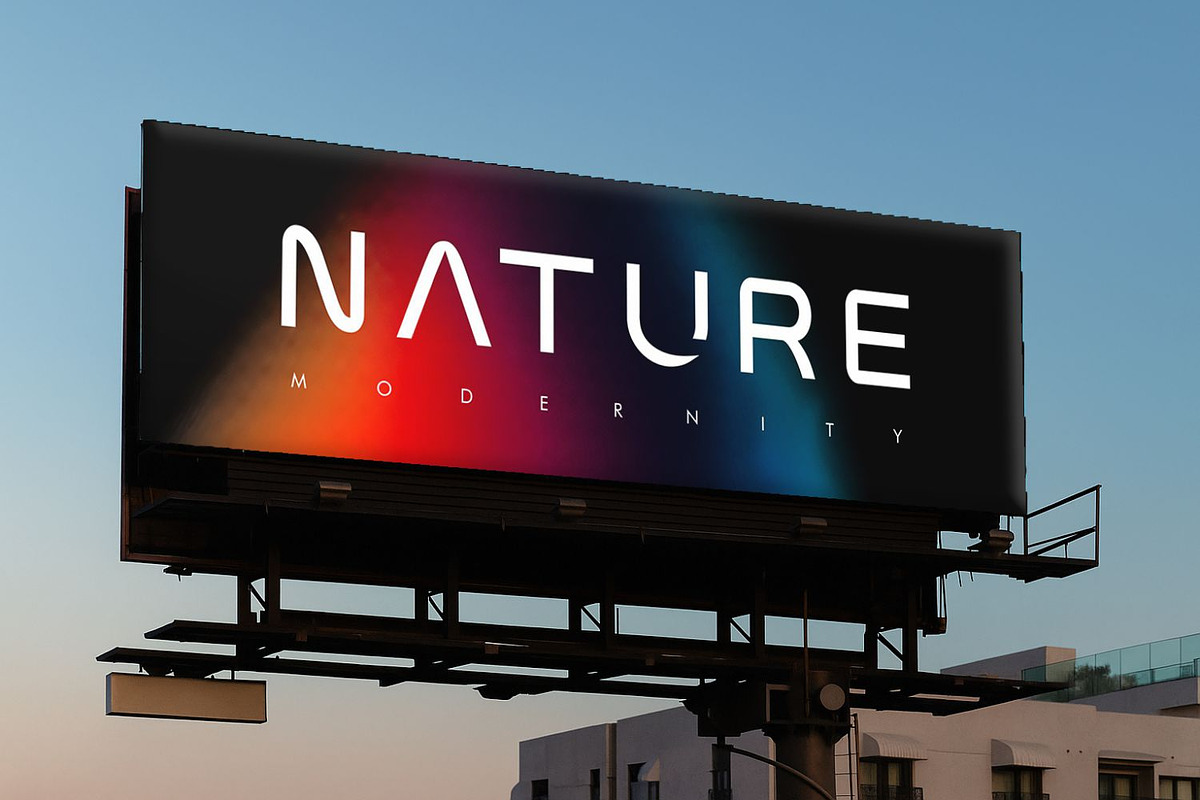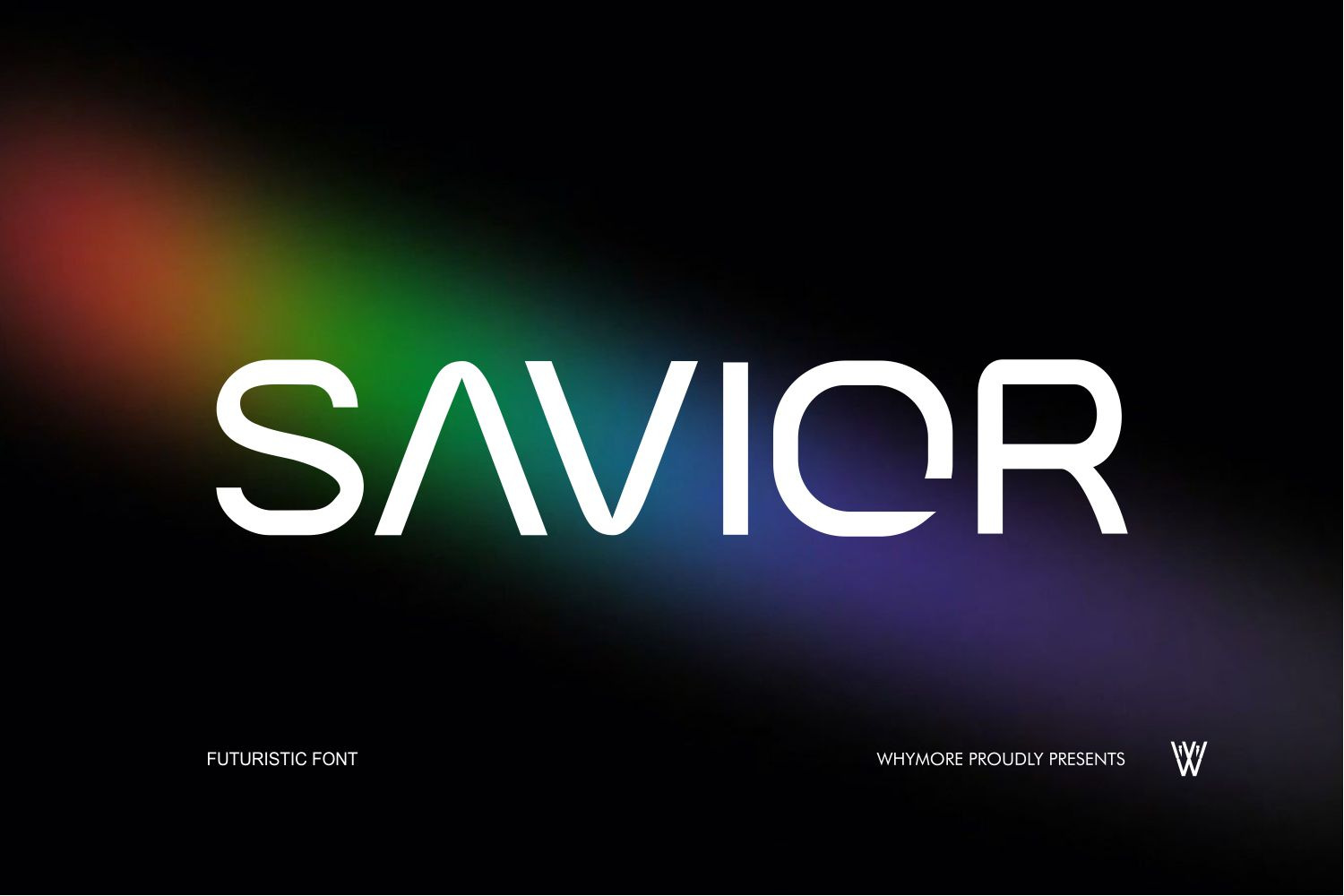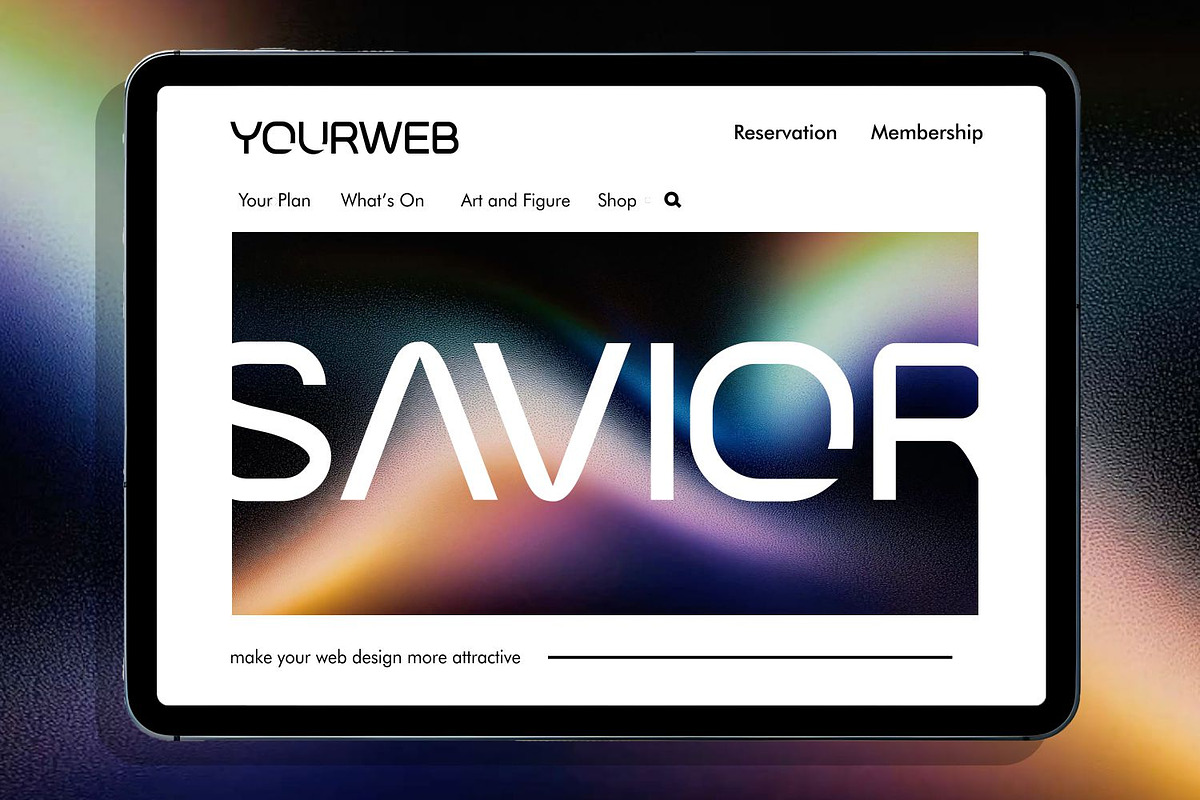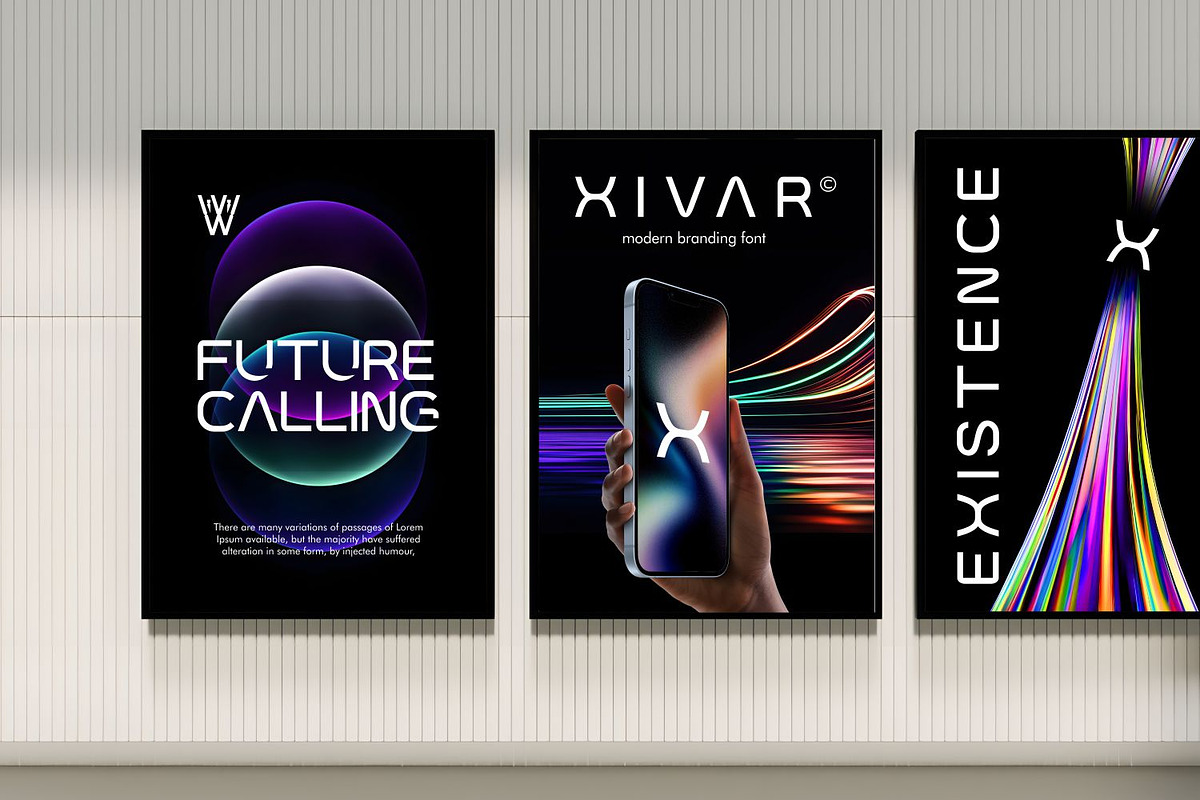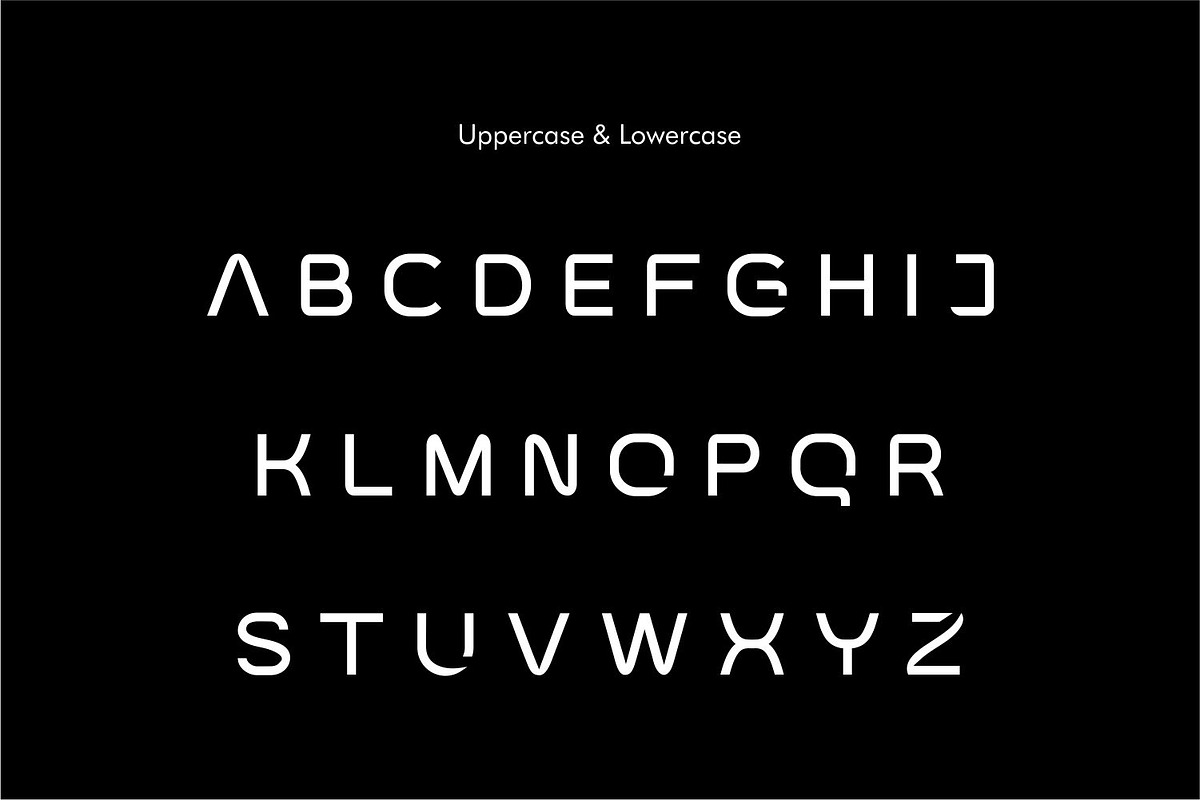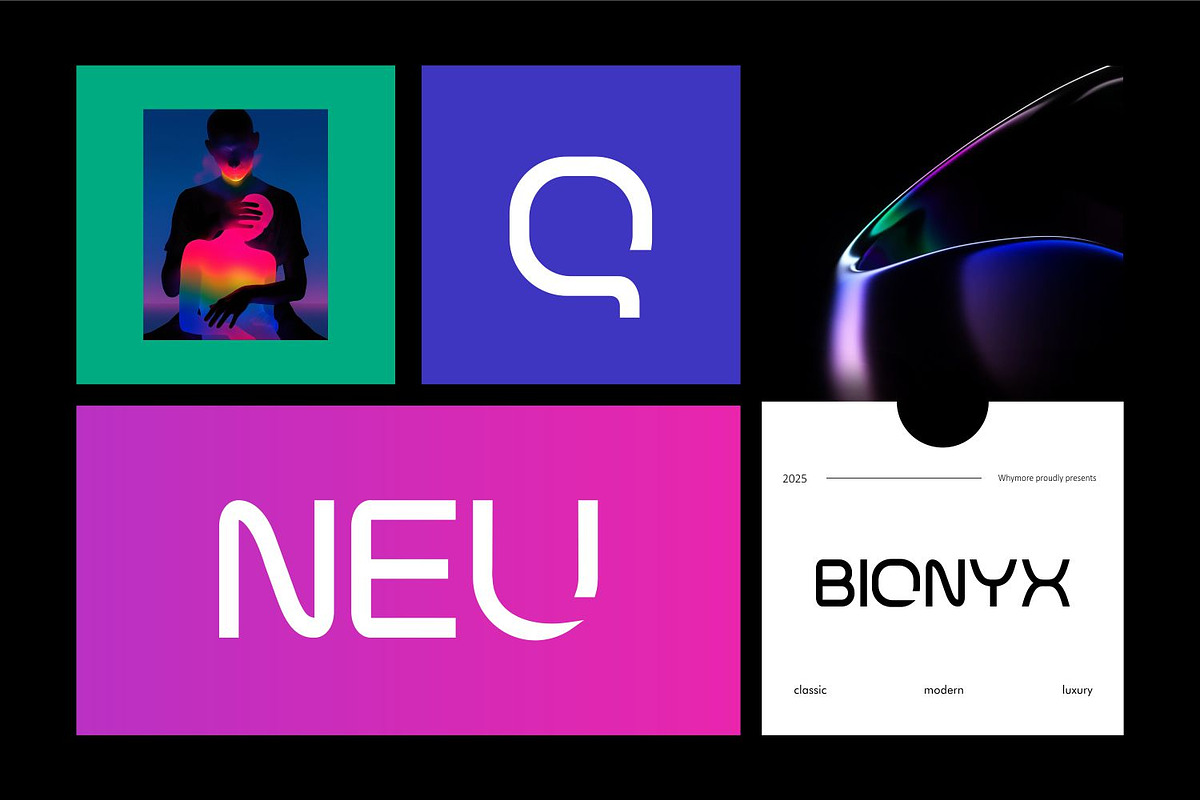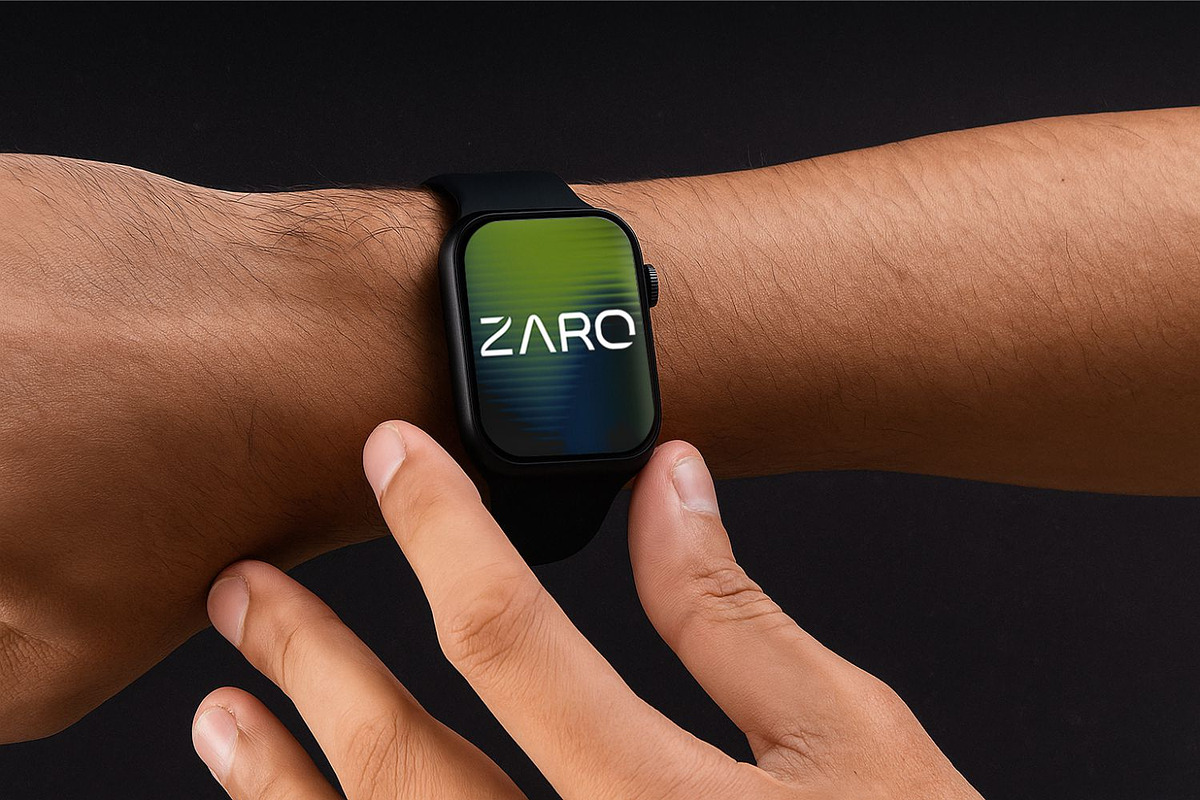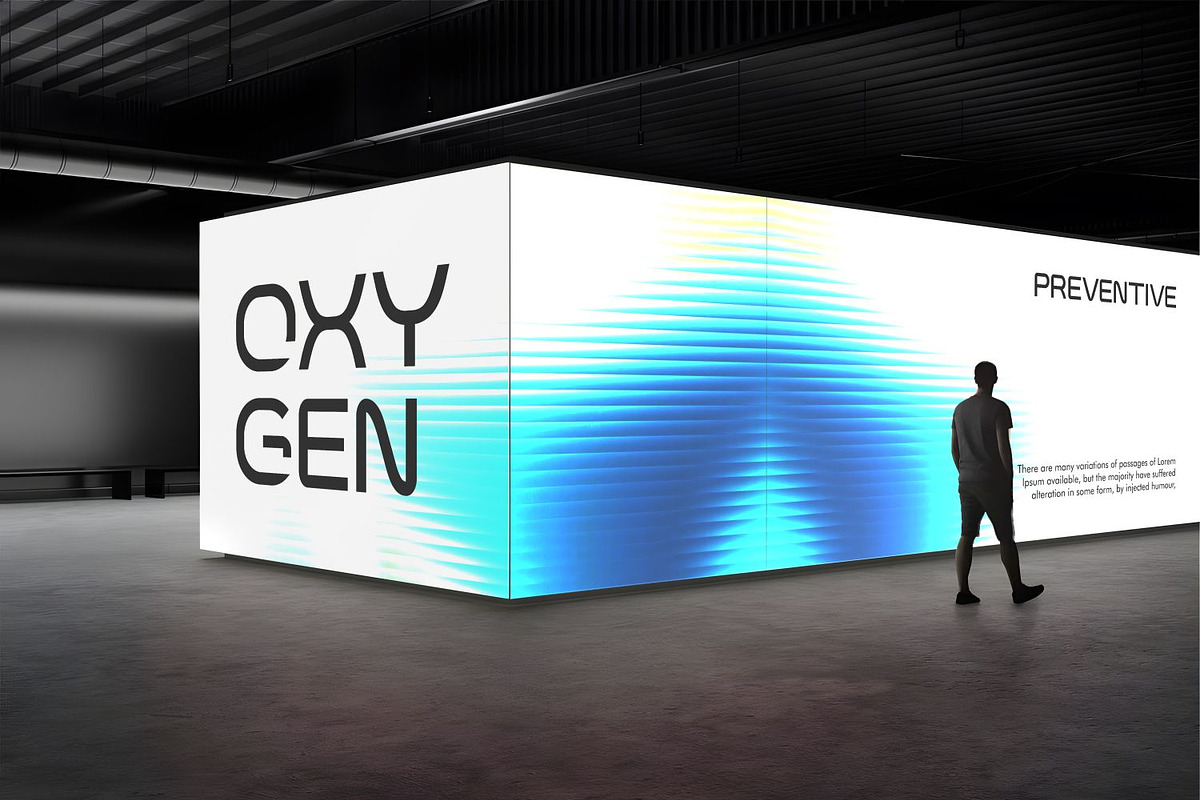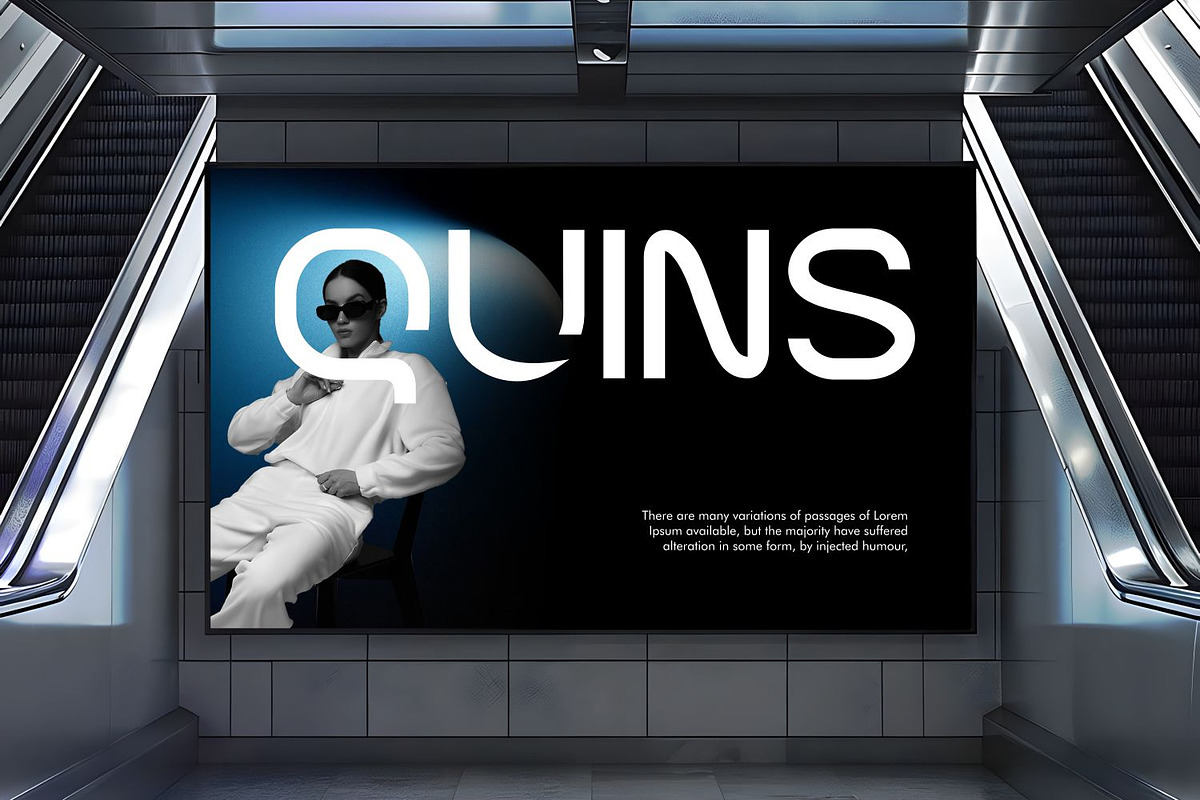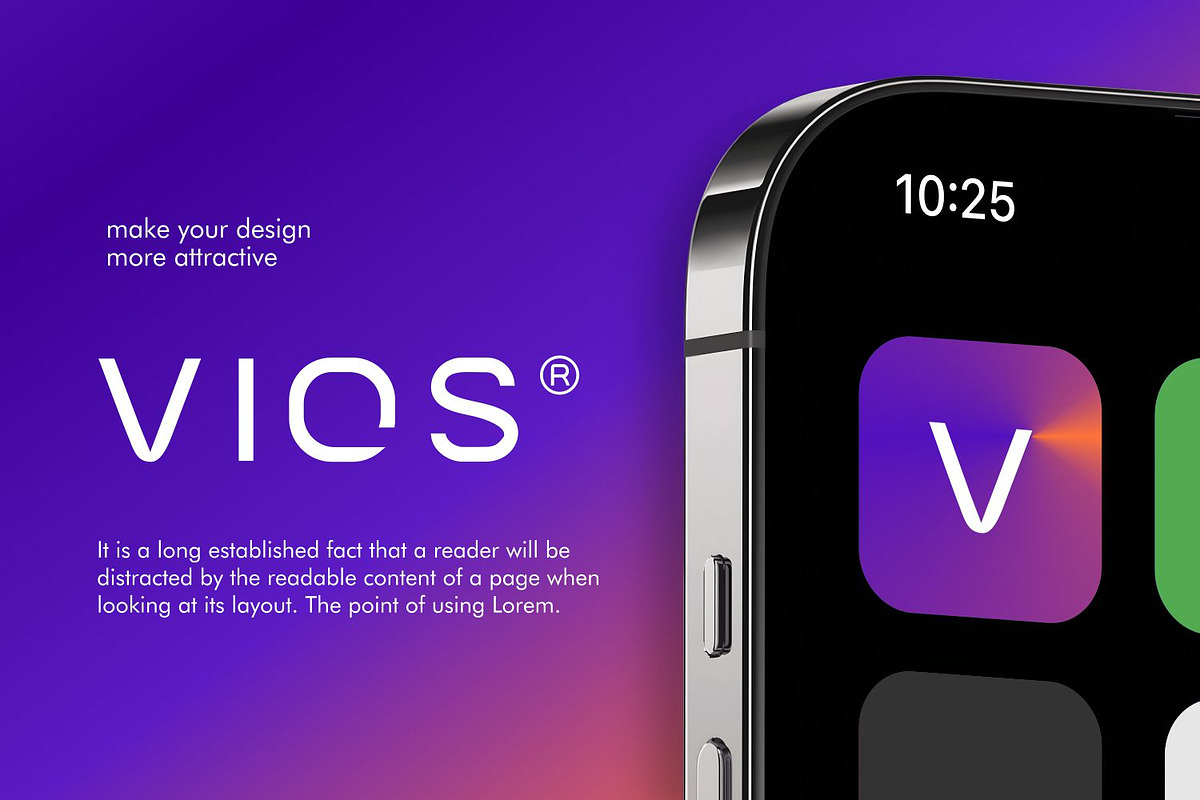
SAVIOR – Futuristic Techno Sans Font
Introducing SAVIOR – a futuristic techno sans serif font
This font has distinctive characteristics: Futuristic, Techno, Geometric, Clean. A cutting-edge sans serif style with unique curves and cuts that give the impression of advanced technology & modern future. Feels very suitable for the tech world, AI startups, wearable devices, mobile applications, and digital corporate branding.
✅ Main Uses:
Technology Logos & Branding Ideal for AI, fintech, blockchain, VR, cybersecurity, green technology, space technology companies.
Stationery & Corporate Identity Build premium imagery on business cards, company profiles, startup pitch decks, branding kits.
Apps & UI/UX Interfaces Great for mobile app icons, dashboard designs, smartwatch displays, smart home UI. Futuristic Ads & Posters
For tech conference events, innovation fairs, esports tournaments, digital campaigns. Esports & Sci-Fi Projects
Suitable for esports logos, game titles, sci-fi movies, VR experience visual identities.
Visually Striking & Modern
Unique character designs make your logo and branding look expensive, futuristic, and unforgettable.
Perfect for Tech Startups & Digital Brands
Rarely does a font blend with future tech branding like SAVIOR.
Supports Various Media
Can be used for digital, apps, UI, 3D mockups, esports events, corporate identity without losing visual impact.
Geometric Precision for Modern Minimalism
Perfect for those of you who want to look clean, sharp, professional, without looking classic or old-fashioned.